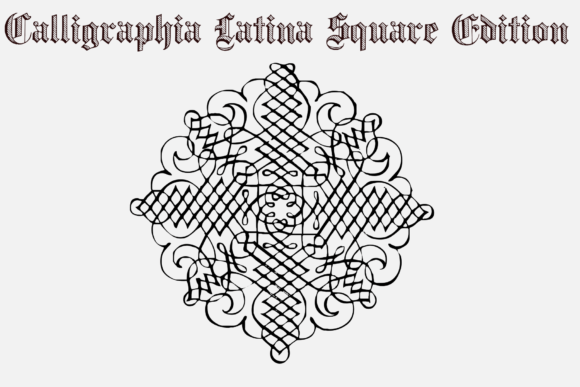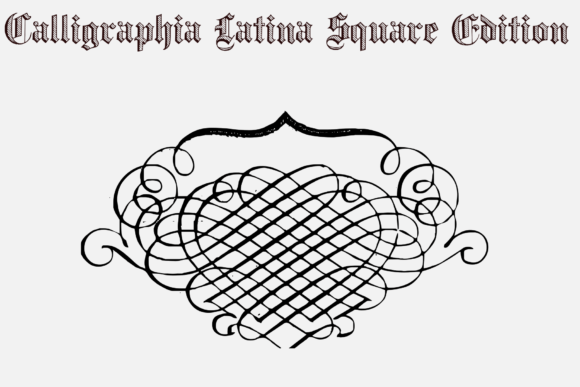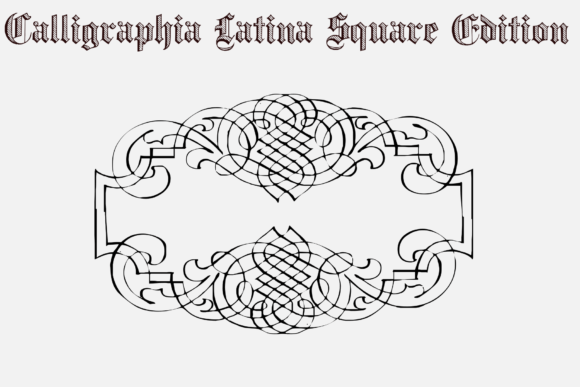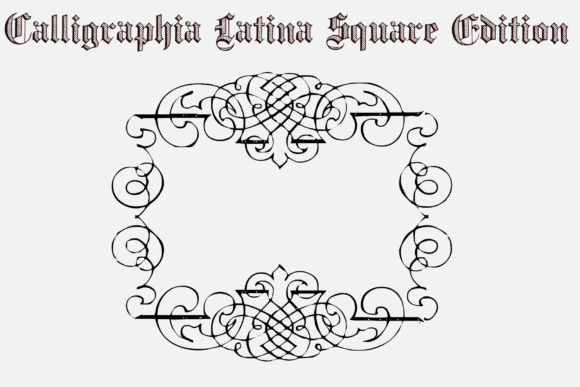
Introducing Calligraphia Latina Square Edition: Elevate Your Designs with Timeless Elegance
In the realm of typography, few fonts manage to capture the essence of neoclassic elegance while infusing modern design elements. Calligraphia Latina Square Edition, presented by Intellecta Design, stands out as a masterpiece that seamlessly blends intricate penmanship frames with a contemporary aesthetic. This dingbat font is not just a typeface; it’s an experience that invites admiration and elevates the visual appeal of any project it’s a part of.
The Roots of Elegance: Tracing Back to Calligraphy
Calligraphy, an art form that dates back centuries, is renowned for its ability to convey elegance, sophistication, and a sense of tradition. Calligraphia Latina Square Edition draws heavily from this rich heritage, incorporating the fluidity and expressiveness of calligraphic lines into its design. The result is a font that exudes a sense of luxury and refinement, perfect for designers and crafters looking to add a touch of classic sophistication to their work.
Neoclassic Eloquence Meets Modern Design
What sets Calligraphia Latina Square Edition apart is its unique blend of neoclassic eloquence and modern design sensibilities. The font’s intricate frames and decorative elements are reminiscent of traditional calligraphy, while its overall structure and versatility are firmly rooted in contemporary design. This blend of old and new makes it an incredibly versatile tool, suitable for a wide range of applications, from branding and packaging to digital media and print.
Key Features of Calligraphia Latina Square Edition
- Dingbat Font: Calligraphia Latina Square Edition is presented as a dingbat font, offering a vast array of decorative frames and elements that can be easily integrated into any design.
- Intricate Penmanship Frames: The font features intricate, hand-crafted frames that add a touch of elegance and sophistication to any project.
- Neoclassic Inspiration: Drawing inspiration from neoclassicism, the font embodies a sense of timeless elegance and refinement.
- Versatility: Its modern design ensures that Calligraphia Latina Square Edition can be used across various platforms and applications, making it a valuable addition to any designer’s toolkit.
Applications for Designers and Crafters
Calligraphia Latina Square Edition offers a multitude of possibilities for designers and crafters. Here are a few ways this exceptional font can enhance your projects:
- Branding and Logo Design: Add a touch of sophistication and elegance to your brand’s identity with custom logos and wordmarks.
- Stationery and Packaging: Elevate your stationery, packaging, and product designs with beautifully crafted frames and decorative elements.
- Digital Media: Use the font to create stunning social media graphics, presentations, and digital advertisements that stand out.
- Print and Editorial Design: Enhance your print projects, such as magazines, brochures, and posters, with the font’s unique and captivating aesthetic.
Calligraphia Latina Square Edition by Intellecta Design is more than just a font; it’s a gateway to creating visually stunning and sophisticated designs. Its unique blend of neoclassic elegance and modern versatility makes it an invaluable resource for designers and crafters looking to leave a lasting impression. Whether you’re working on a branding project, crafting beautiful stationery, or creating engaging digital content, Calligraphia Latina Square Edition invites you to experience the visual journey of enhancing your designs with timeless elegance. Discover the potential of your projects with this impressive dingbat font and let your creativity flourish.